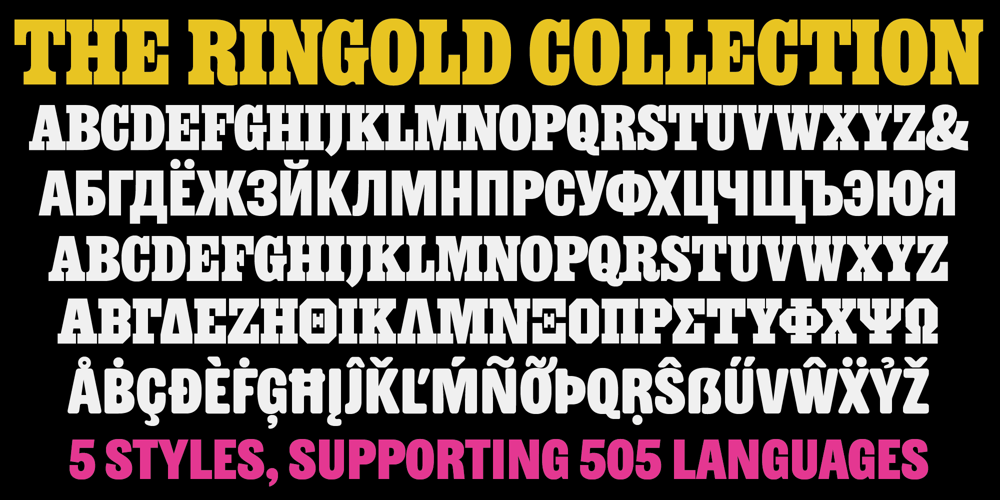
Ringold
Ringold font
Ringold Font Family was designed by Dan Rhatigan and published by Bijou Type. Ringold contains 5 styles and family package options. Ringold is for those bold, solid headlines with letters that need to be tight without quite touching. Adjust the tone of your text with faces within the family that share the same proportions and density, but with a shift in personality from one style to the next. Ringold Clarendon is a bit whimsically nostalgic. Ringold Slab is its sharper, more buttoned-down cousin. Ringold Gym beefs up the Slab and makes it more architectural. Ringold Sans takes off the serifs but holds on to some of the warmth. Ringold Soft is a smoother, friendlier spin on the Sans. The 5 styles each support about 505 languages.